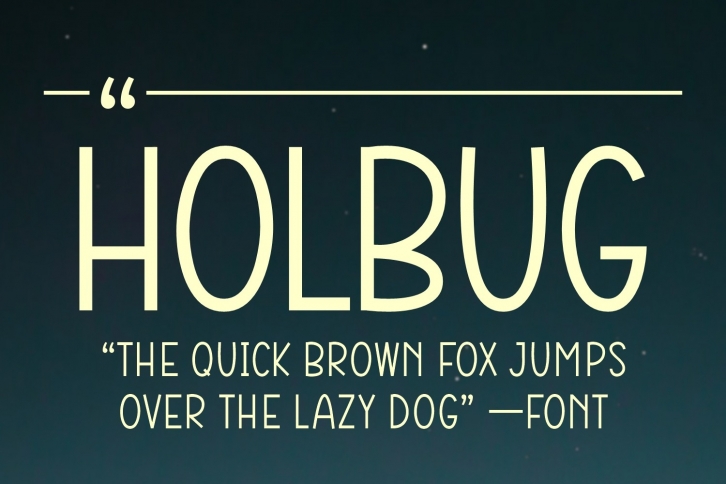
Holbug is a minimalistic sans serif font. The simple and clean lines make this typeface extremely versatile. From modern prints and digital designs to birthday cards or kid’s crafts – Holbug will certainly be a hit!